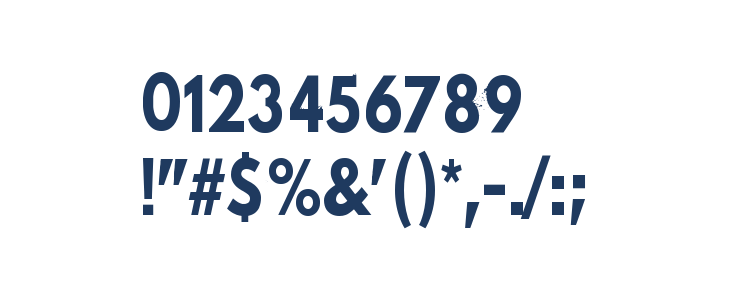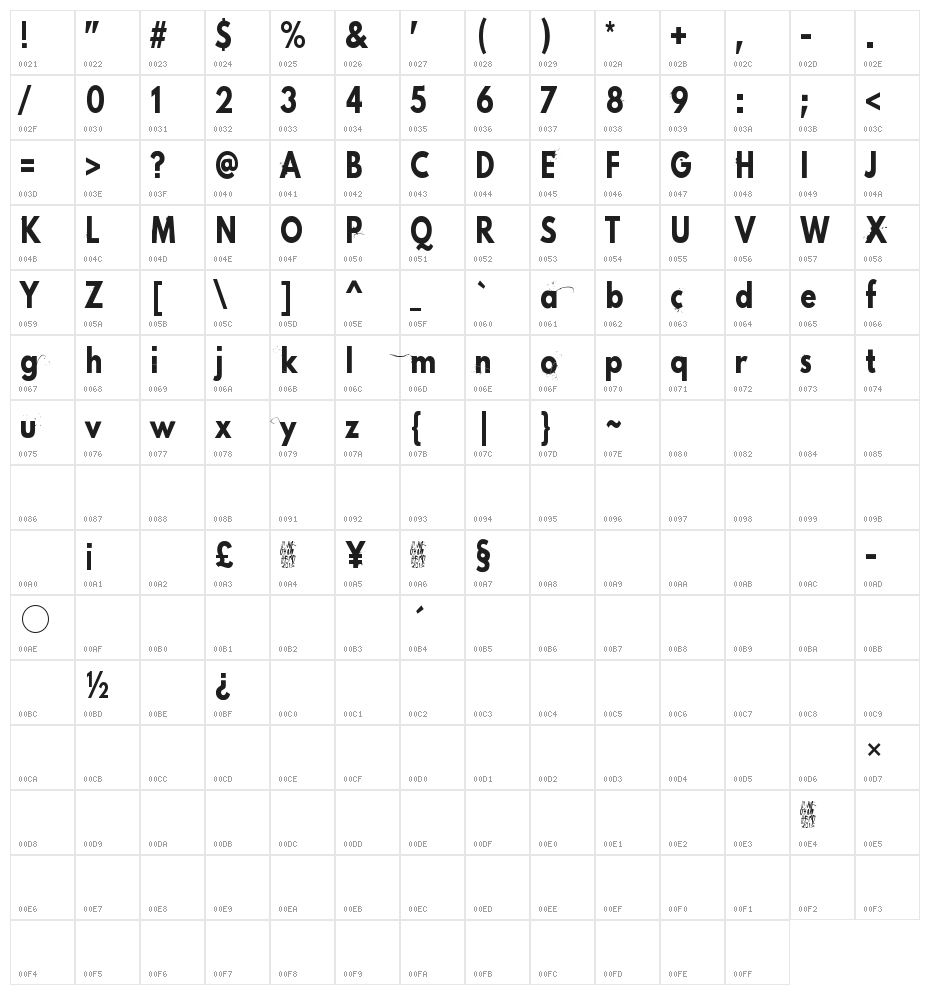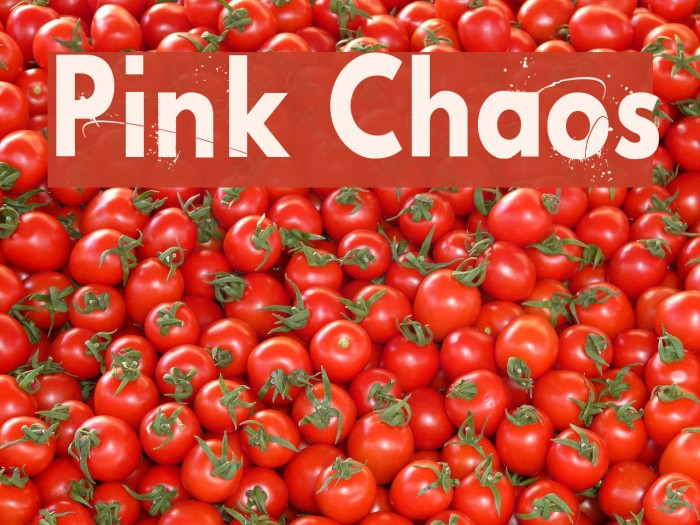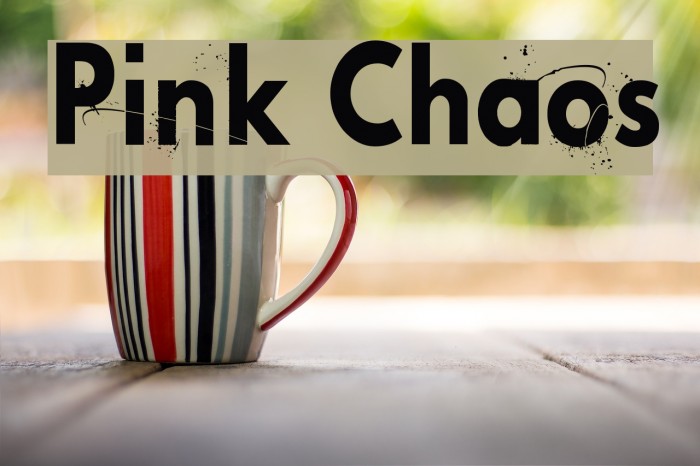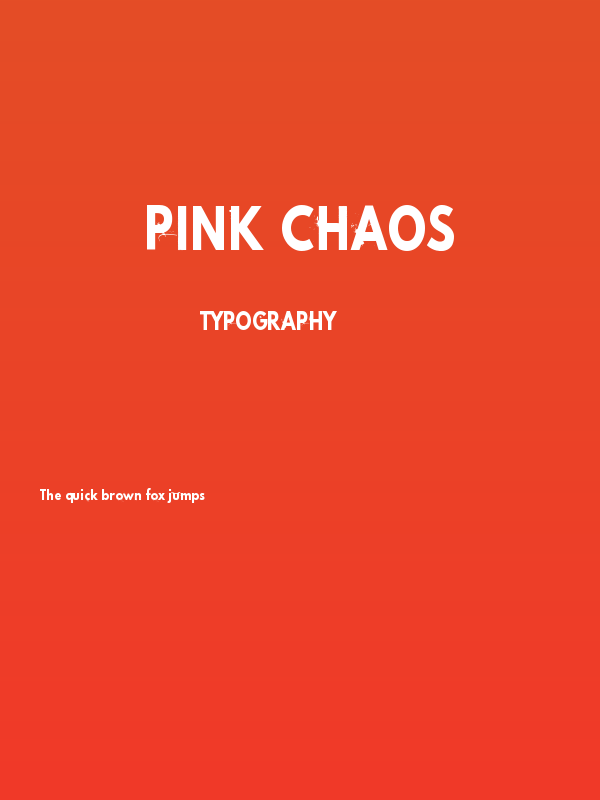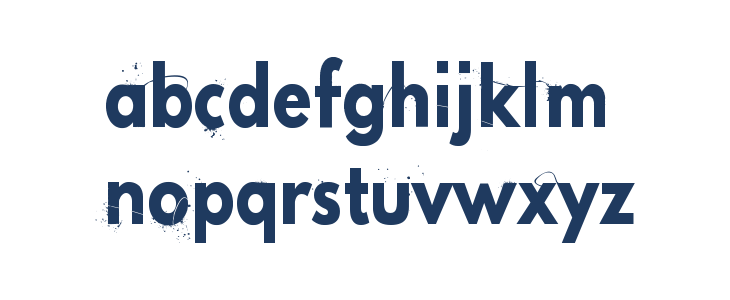
Pink Chaos Font
Pink Chaos Description
This font features a bold and impactful design with a distressed, grunge-like texture that gives it a unique and edgy appearance. The uppercase and lowercase letters are robust and solid, with a slightly irregular finish that adds character and a sense of chaos. The numerals and special characters maintain this rugged style, making the font suitable for projects that require a strong visual statement. The overall aesthetic is modern yet rebellious, perfect for capturing attention and conveying a sense of boldness and creativity.
| Overall Style | Modern, Grunge |
| Proposed Projects | This font is perfect for music album covers, edgy posters, streetwear branding, and any project that requires a bold, rebellious aesthetic. |